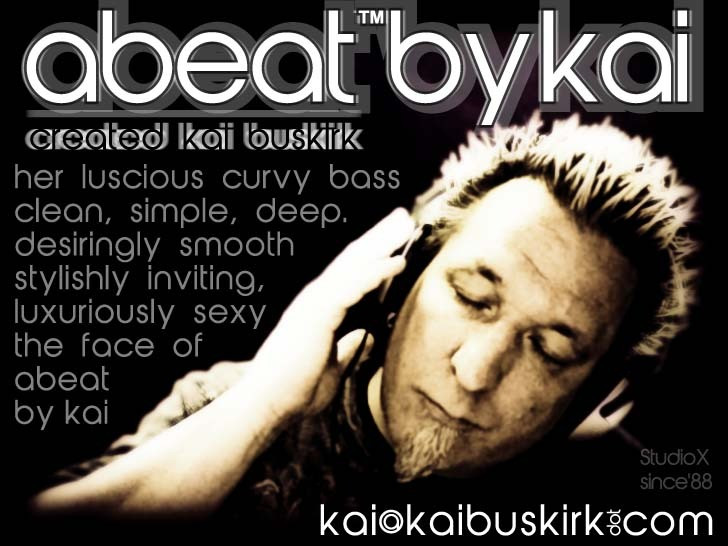
AbeatbyKai Font
AbeatbyKai Sans Serif Font, Suitable for any design needs : logo, branding, modern advertising design, logos, poster quote, book – cover Title, editorial design, website – blog, card, t-shirts, and any hand-lettered needs.
her luscious curvy bass
clean, simple, deep.
desiringly smooth
stylishly inviting,
luxuriously sexy
the face of
abeat
by Kai